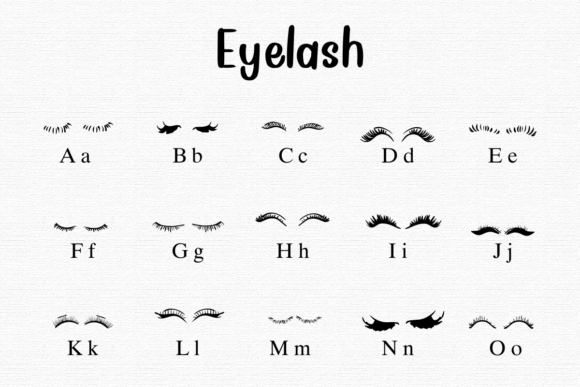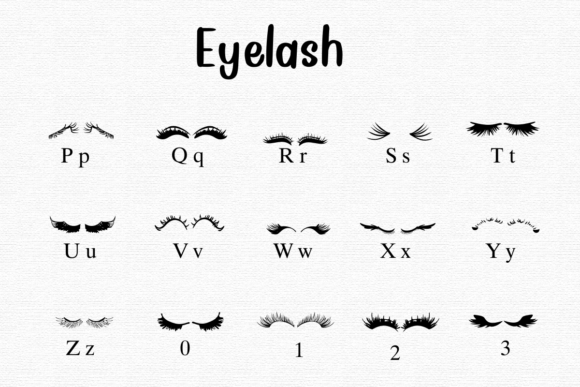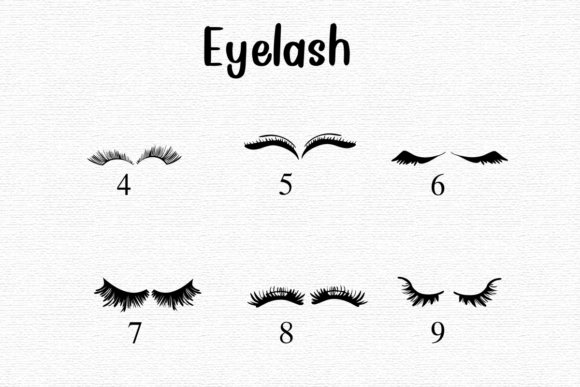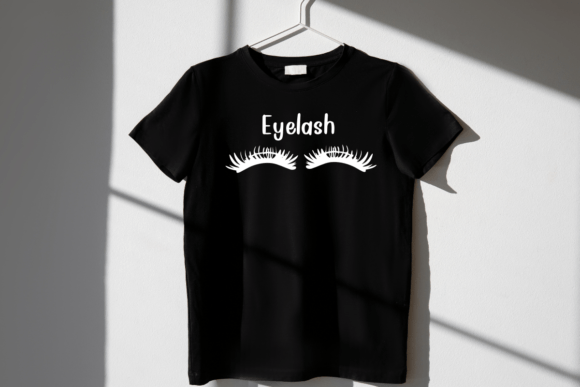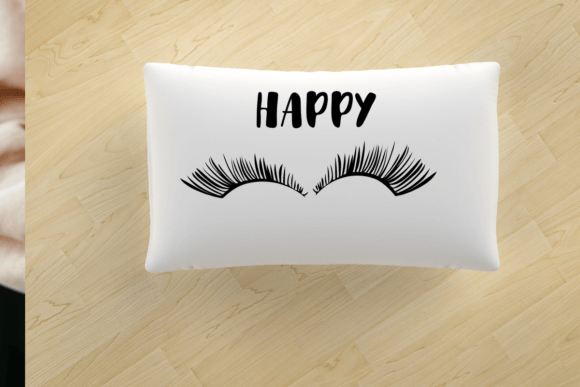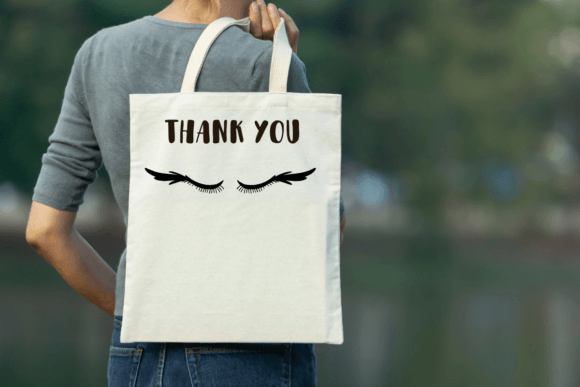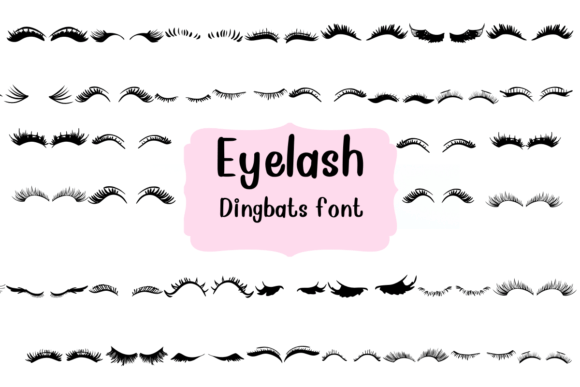
Eyelash Font: Add a Playful Touch to Your Designs with Unique Lash-Shaped Letters
Are you tired of using the same old fonts in your designs? Look no further than the Eyelash Font, a fun and creative typeface that will add a playful touch to any project. As the name suggests, each letter in this font is designed to look like a different shape of an eyelash, making it perfect for designers and crafters looking to add some whimsy to their work.
What is Eyelash Font?
Eyelash Font is a unique and eye-catching typeface that features lash-shaped letters instead of traditional letterforms. Each letter is carefully designed to resemble a different type of eyelash, from bold and dramatic to delicate and subtle. This font is perfect for adding a touch of personality to your designs, whether you’re working on a DIY craft project, a social media graphic, or a professional branding campaign.
Features of Eyelash Font
- Unique Letterforms: Each letter in the Eyelash Font is a different shape of an eyelash, making it a one-of-a-kind typeface that’s sure to stand out.
- Playful and Fun: The Eyelash Font is perfect for adding a playful touch to your designs, whether you’re working on a project for kids or adults.
- Versatile: This font can be used for a wide range of projects, from DIY crafts and scrapbooking to professional branding and advertising.
Uses for Eyelash Font
The Eyelash Font is a versatile typeface that can be used for a wide range of projects, including:
- DIY Crafts: Add a playful touch to your DIY craft projects, such as scrapbooking, card making, and journaling.
- Social Media Graphics: Use the Eyelash Font to create eye-catching social media graphics, such as Facebook posts, Instagram stories, and Pinterest pins.
- Branding and Advertising: Add some personality to your branding and advertising materials, such as business cards, brochures, and flyers.
- Party Decorations: Use the Eyelash Font to create fun and playful party decorations, such as banners, signs, and invitations.
Tips for Using Eyelash Font
Here are a few tips for using the Eyelash Font in your designs:
- Use it Sparingly: Because the Eyelash Font is a unique and eye-catching typeface, it’s best to use it sparingly to avoid overwhelming your design.
- Pair it with a Simple Font: Pair the Eyelash Font with a simple font to create contrast and make your design more readable.
- Experiment with Colors: Have fun experimenting with different colors and textures to add depth and interest to your design.
The Eyelash Font is a fun and creative typeface that’s perfect for adding a playful touch to your designs. With its unique lash-shaped letters and versatile uses, this font is sure to become a favorite among designers and crafters. So why not give it a try and see how you can use the Eyelash Font to add some personality to your next project?
- Q: What is the Eyelash Font? A: The Eyelash Font is a unique and eye-catching typeface that features lash-shaped letters instead of traditional letterforms.